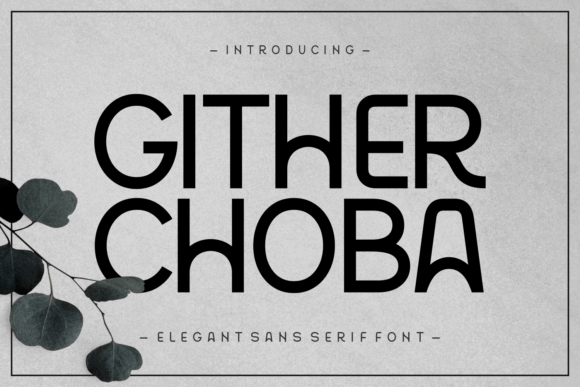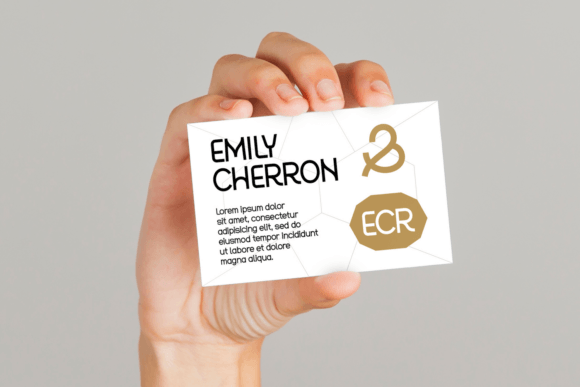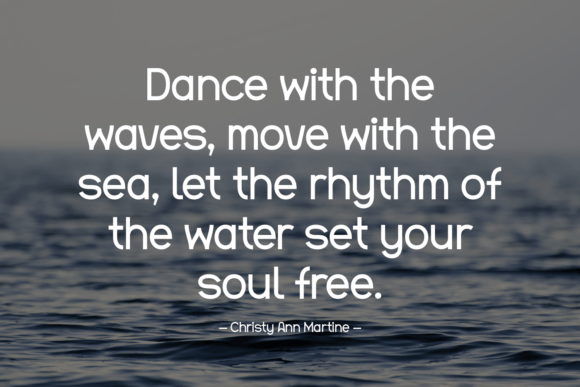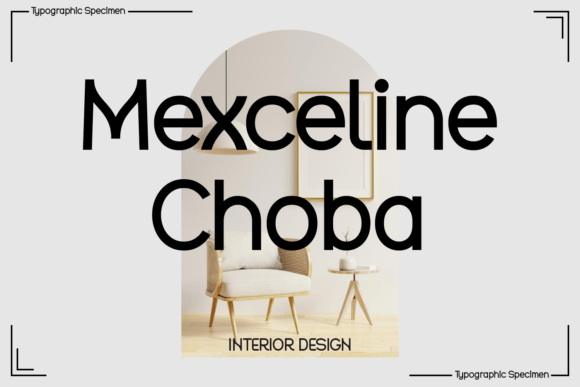
Gither Choba Font
About the Gither Choba Font
Elevate your designs with Gither Choba Font, a font that combines sophistication with readability. Gither Choba is a sleek and modern sans-serif font designed for versatility and style. Its clean lines and balanced proportions make it perfect for branding, web design, and editorial layouts. With a contemporary feel and excellent readability, it adds sophistication to any creative project.
Gither Choba excels in headlines, logos, and short-form text applications such as posters and packaging where its clean lines and modern aesthetic shine. Its strong visual impact makes it ideal for conveying a sense of sophistication and modernity. However, its less-pronounced x-height makes it unsuitable for extended body text or UI elements requiring high readability at smaller sizes.
For a balanced and sophisticated look, pair Gither Choba with a classic serif like Garamond or a warmer, slightly rounded sans-serif such as Lato. These pairings create visual contrast while maintaining a professional feel. For a bolder statement, consider pairing it with a geometric sans-serif for a modern, high-impact effect.
Gither Choba projects a confident, sleek, and modern personality. It’s well-suited to brands aiming for a clean, sophisticated image—think technology, high-end fashion, or minimalist design firms. Avoid using it for projects requiring a playful or overly friendly aesthetic.
Gither Choba Font Usage Examples
Gither Choba Font Example